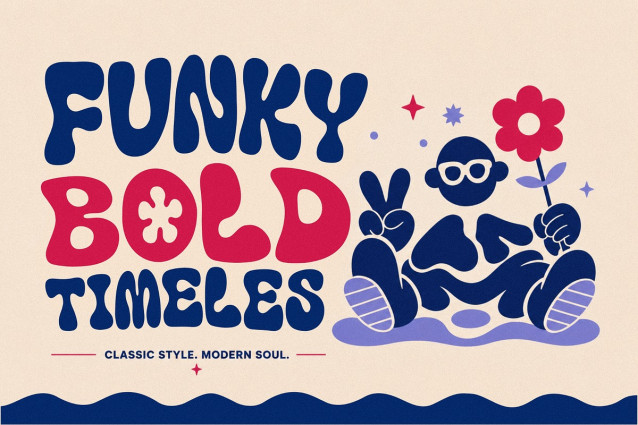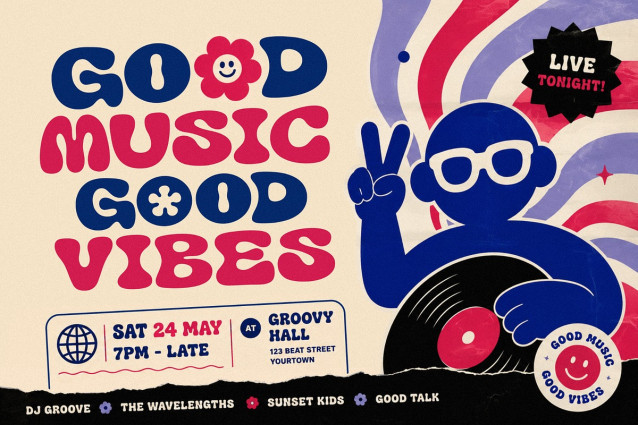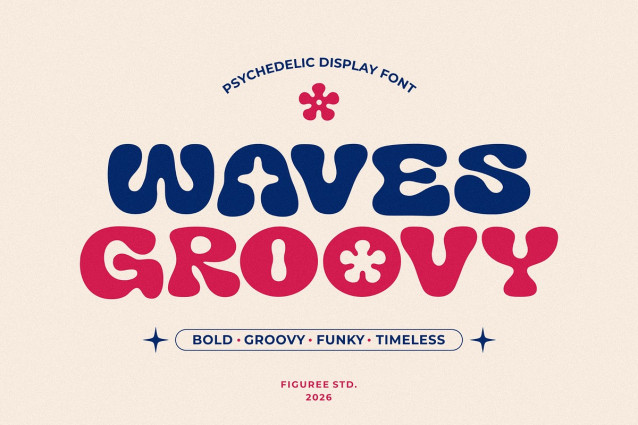
Groovy Waves Font – Psychedelic Retro Font. Inspired by vintage psychedelic lettering and flowing wave-shaped typography, this font is designed to create eye-catching visuals with a nostalgic retro atmosphere. Its playful curves and distorted letterforms instantly add movement and character to any layout.
Groovy Waves is built for creative projects that need a strong visual identity. From posters and music event graphics to album covers, packaging, social media content, and retro-themed branding, this font helps your typography become the center of attention. The thick all-caps design makes every word stand out clearly while maintaining its unique psychedelic personality.
The font captures the spirit of retro visual culture with warped shapes, flowing lines, and energetic forms. It works perfectly for designers looking to create vintage-inspired layouts, groovy compositions, and expressive typography with a handcrafted feel.